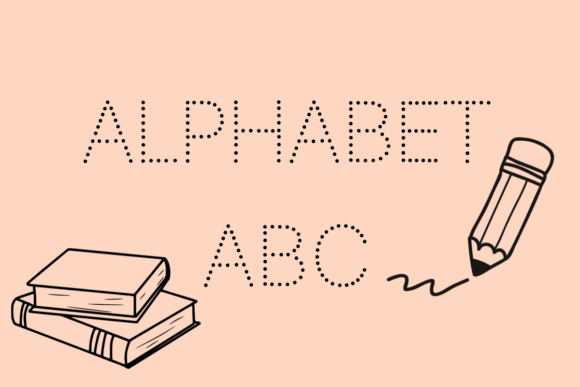
Discovering the Magic of Alphabet Abc Font Font
Do you remember the thrill of creating a masterpiece with crayons and coloring books as a child? The feeling of watching a seemingly chaotic mess transform into a vibrant work of art was nothing short of magical. Today, we’re going to revisit that sense of wonder and excitement, but this time, with a twist. We’re going to explore a unique font that will make learning the alphabet a fun and engaging experience for both children and designers alike.
Meet Alphabet Abc Font Font, a specially designed font that combines the joy of dot-to-dot exercises with the utility of a functional font. This innovative approach not only helps children acquire the alphabet but also makes the learning process a delightful experience. For designers, Alphabet Abc Font Font offers a valuable resource for creating engaging and interactive content that’s sure to captivate audiences of all ages.
- Unique Characteristics: The Alphabet Abc Font Font features a unique, hand-drawn design with a playful and whimsical feel, making it perfect for children’s books, educational materials, and other projects that require a friendly and approachable tone.
- Character Set: The font includes a comprehensive character set, including uppercase and lowercase letters, numerals, punctuation marks, and special characters, ensuring that users have access to a wide range of symbols and glyphs.
- Multi-Language Support: The Alphabet Abc Font Font supports multiple languages, including English, Spanish, French, German, Italian, and many others, making it a versatile choice for global projects and applications.
Alphabet Abc Font Font Review
I’ve had the chance to work with the Alphabet Abc Font Font, and here’s my honest take on it. ✨ One of the things that really stands out is its versatility. It’s a great choice for both digital and print projects, and it’s easily scalable for different use cases. The font is also highly legible, making it perfect for body text or headings.
Another advantage of the Alphabet Abc Font Font is its wide range of languages supported. It’s a great option for multilingual projects, and the font’s designer has done a great job of ensuring that it looks great across different languages.
⚠️ While the Alphabet Abc Font Font is a solid choice, there are a few limitations to consider. One of the main drawbacks is its lack of distinctiveness. While it’s a great font for general use, it may not stand out in more creative or artistic projects.
Overall, I think the Alphabet Abc Font Font is a great choice for a wide range of projects. It’s easy to use, highly legible, and versatile. While it may not be the best choice for more creative projects, it’s a solid option for anyone looking for a reliable font.
- Highly legible
- Scalable for different use cases
- Wide range of languages supported
- Great for digital and print projects
The Alphabet Abc Font Font is ideal for:
- Children’s educational materials
- Custom signage and banners